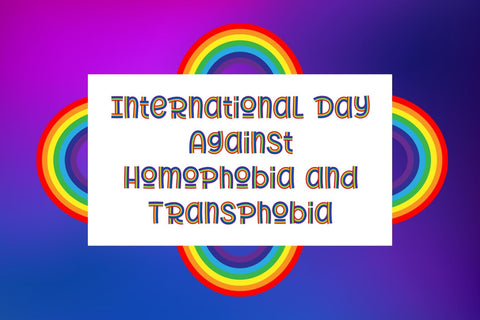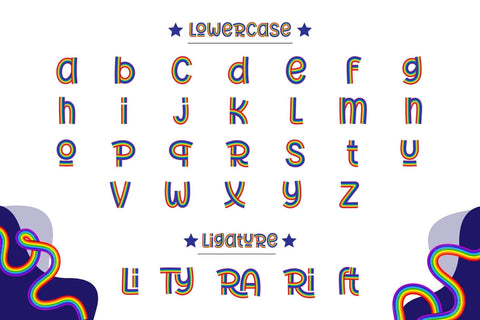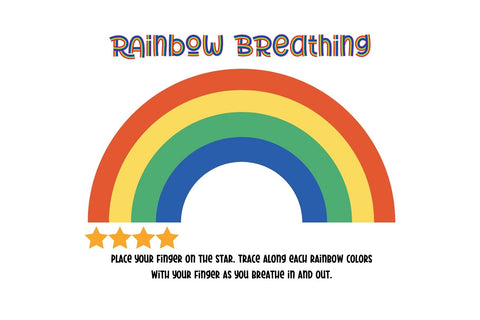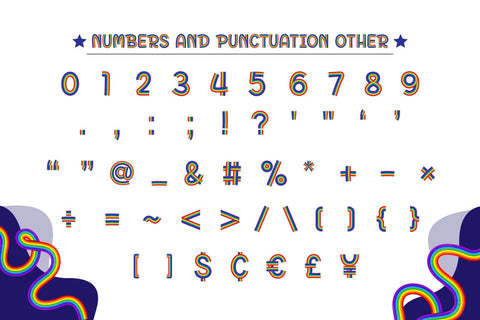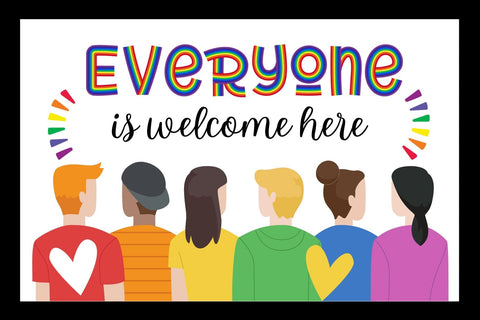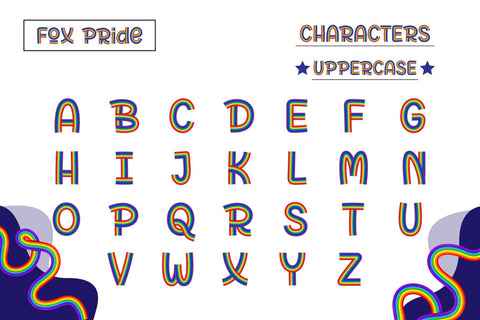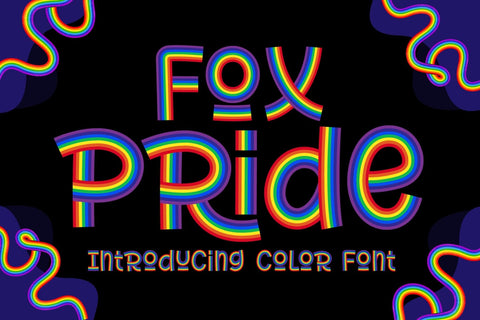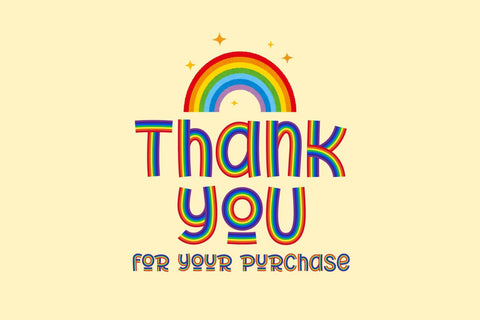
Fox Pride Color Font
Fox Pride is a rainbow, beautiful, and cute color font. Design your product using this unique font and share your project for others to be inspired by your work!